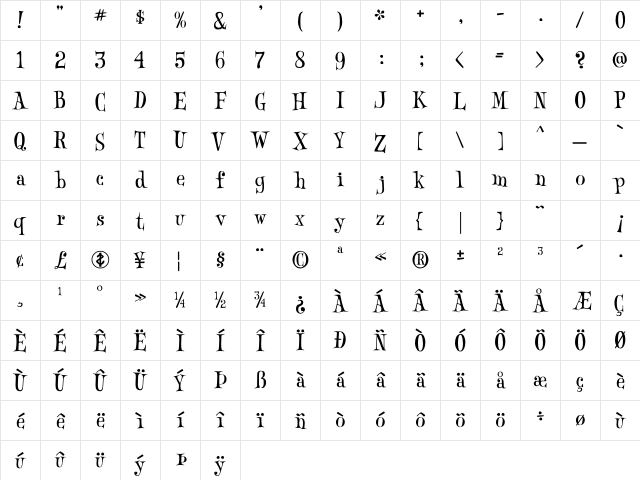
Complete SawdustMarionette Regular glyph index. Displaying only characters natively supported by SawdustMarionette Regular font.
SawdustMarionette is a composed and adaptable typeface that performs quietly and consistently across a wide range of design contexts.